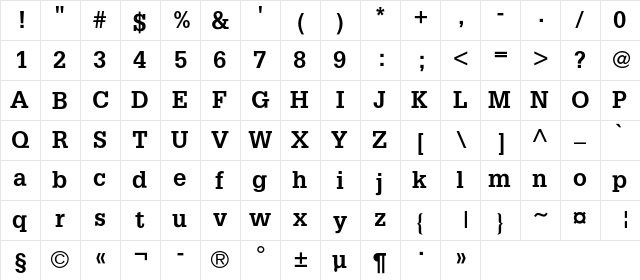
AGGloriaC Bold
Design Context for AGGloriaC Typeface
AGGloriaC offers clean, dependable letterforms without strong stylistic allegiance, making it a practical choice for designers who need flexibility. The heavy weight commands attention and anchors typographic hierarchies.